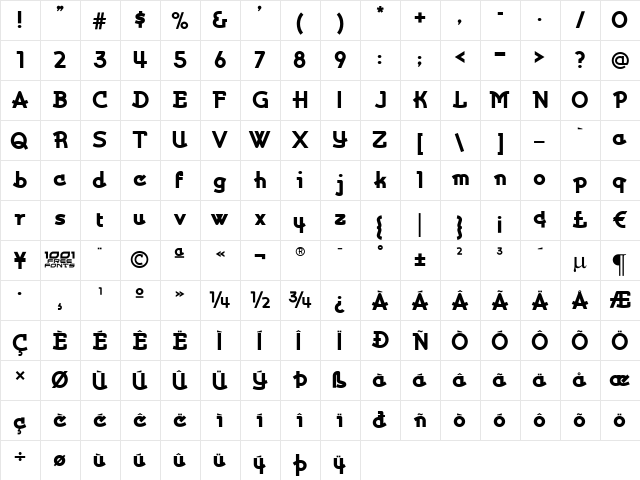
Kurvaceous NF Regular Font Preview
Kurvaceous NF Regular
Design Context for Kurvaceous NF Typeface
Kurvaceous NF is a composed and adaptable typeface that performs quietly and consistently across a wide range of design contexts.
Pro Tip: Use Kurvaceous NF in both headline and body roles to test its range before committing to a single application.